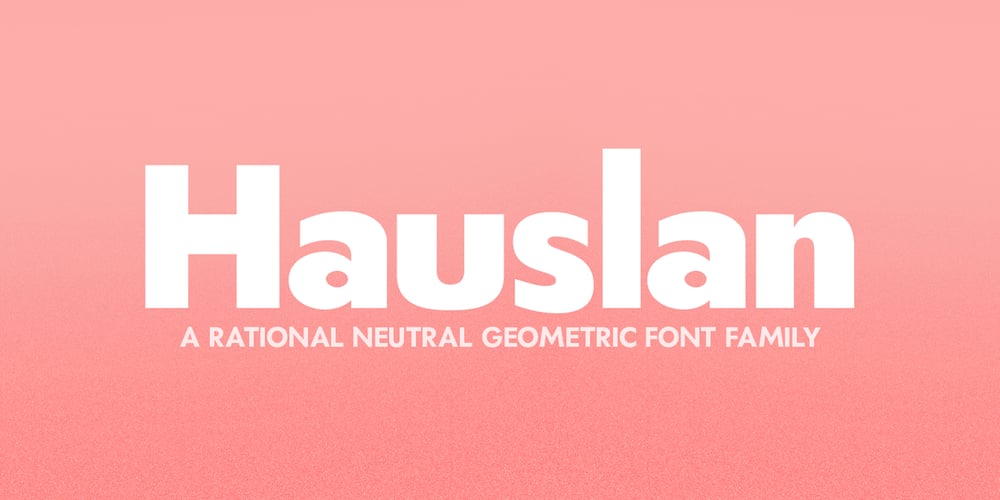
Hauslan Font Family was designed by Álvaro Thomáz and published by Álvaro Thomáz Fonts. Hauslan contains 8 styles and family package options. Hauslan is a simple, minimal and geometric type family inspired by the rationality presented by Bauhaus in 1920 which affected many areas such as architecture and graphic design.Following the concept of basic geometric shapes, Hauslan focuses on readability and versatility, either for small texts or headlines.